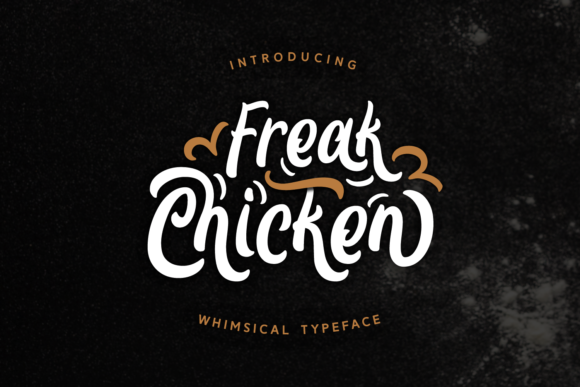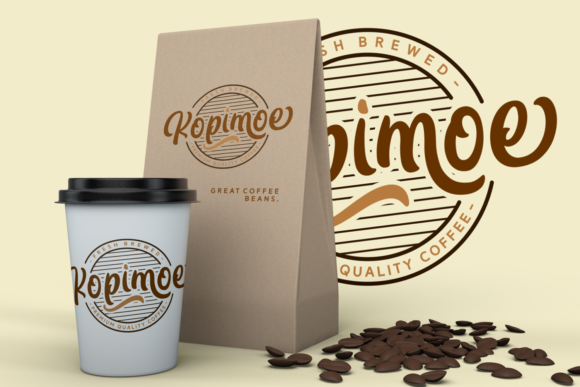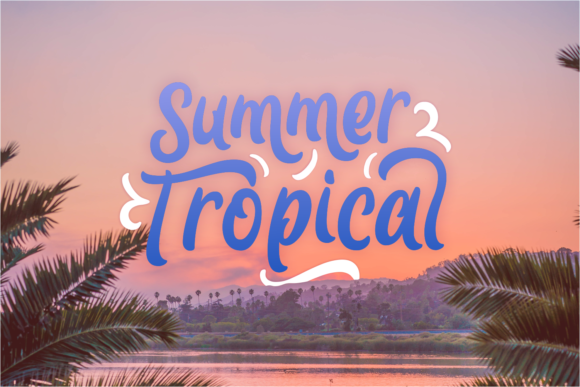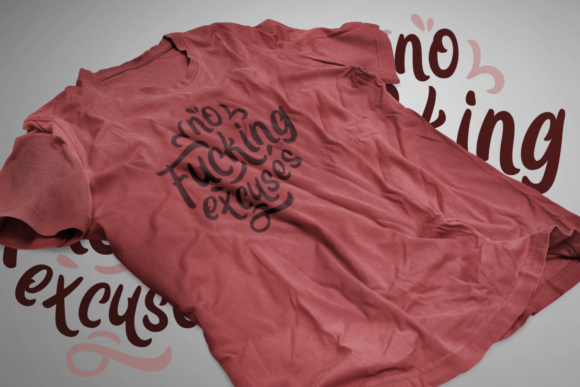
Freak Chicken Font
Freak Chicken is a playful script font with fascinating shapes. This font includes many alternate characters that can make your text stand out from the crowd!